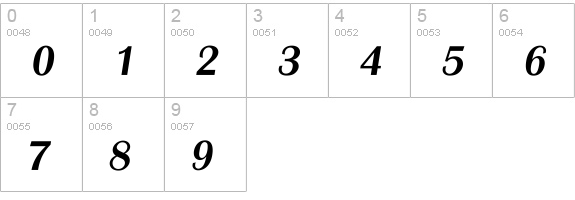
Igrenoble Medium Font Details
Igrenoble Medium is a balanced, medium-weight variant in the Igrenoble typeface family \xE2\x80\x94 well suited to sub-headlines, navigation, and balanced editorial work.
Igrenoble Medium is a versatile and modern font that exudes elegance and sophistication. With its clean lines and balanced letterforms, this typeface is perfect for a wide range of design projects, including logo design, branding, print materials, and web design. The medium weight of the font strikes a harmonious balance between boldness and subtlety, making it suitable for both headlines and body text. One of the standout features of Igrenoble Medium is its timeless appeal. The font's classic design ensures that it will never go out of style, making it a reliable choice for designers looking for a long-lasting and enduring typeface. Its versatility also shines through in its ability to adapt to different design styles, from contemporary and minimalist to vintage and retro. What sets Igrenoble Medium apart from other fonts is that it is available for free. Yes, you read that right! This exceptional font can be freely downloaded at FontsMarket.com, allowing designers of all levels to access its high-quality design without any cost. Whether you are a professional graphic designer or an amateur enthusiast, this free font offers you the opportunity to elevate your designs without breaking the bank. The creators of Igrenoble Medium have meticulously crafted each letterform to ensure optimal legibility and readability. The spacing and kerning have been carefully considered, resulting in a font that is easy on the eyes and effortlessly enhances the overall aesthetic of any design. Its clean and crisp appearance makes it an excellent choice for both print and digital media, ensuring that your message will be conveyed with utmost clarity. With Igrenoble Medium, you have the freedom to explore your creativity and bring your design visions to life. Its versatility, timeless appeal, and free availability make it an invaluable asset in any designer's toolkit. So why wait? Head over to FontsMarket.com now and download Igrenoble Medium to unlock a world of design possibilities.